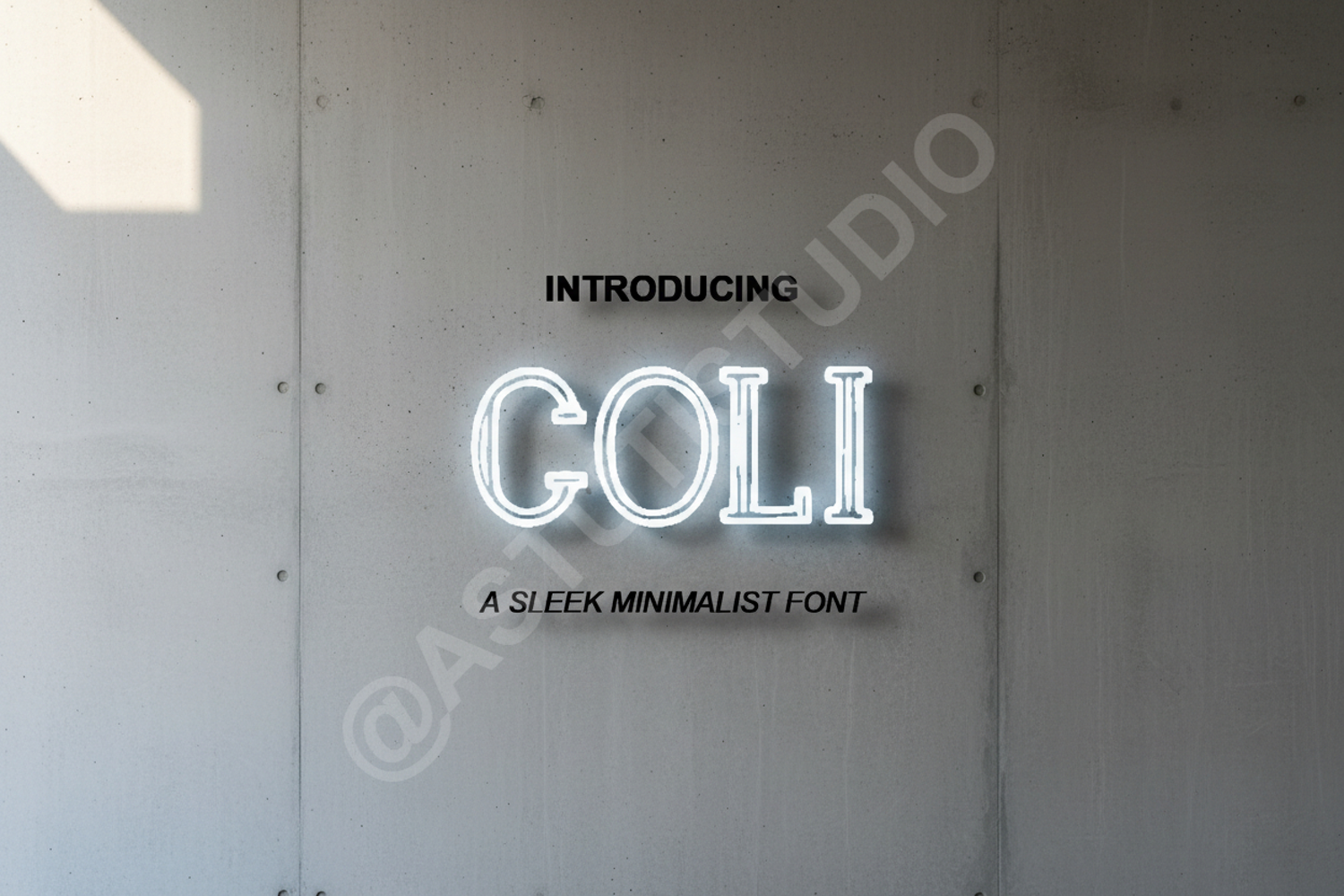
Coli - Modern Minimalist Sans Serif Typeface
Coli
Coli is a premium sans serif typeface designed with precision and modern aesthetics in mind. Its clean lines and balanced proportions make it a versatile addition to any designer's toolkit, offering a sophisticated look that remains timeless and highly readable across various mediums.
- Professional Branding and Visual Identity
- High-end Logo Design and Wordmarks
- Editorial Layouts and Magazine Spreads
- Minimalist Social Media Graphics and Content
- Wedding Invitations and Elegant Stationery
- Modern Website Headers and UI Design